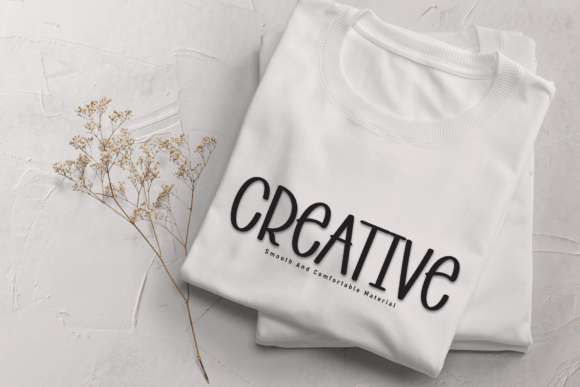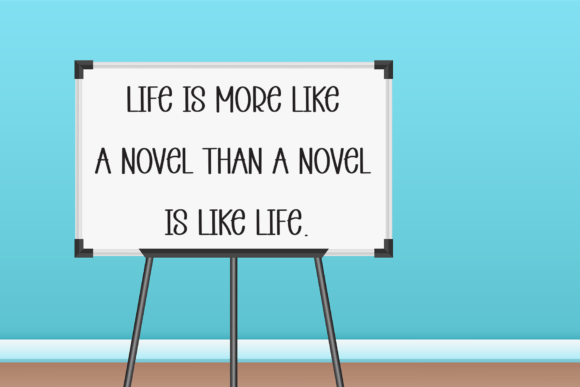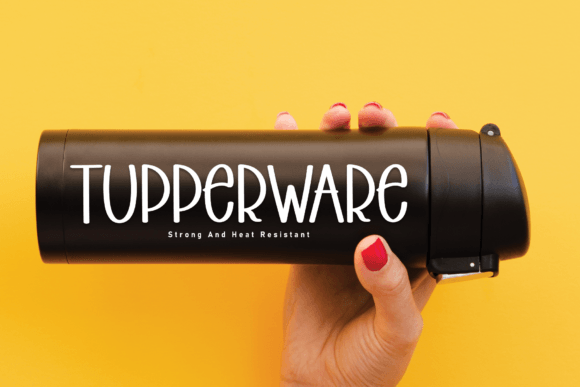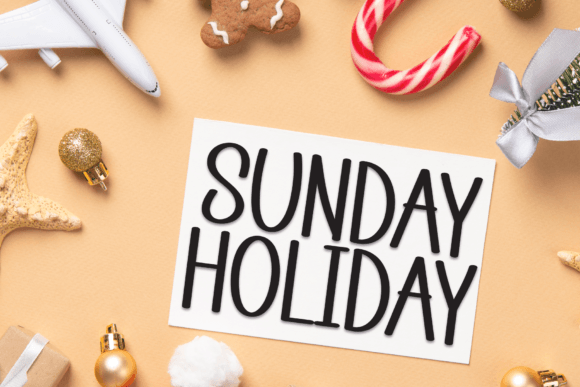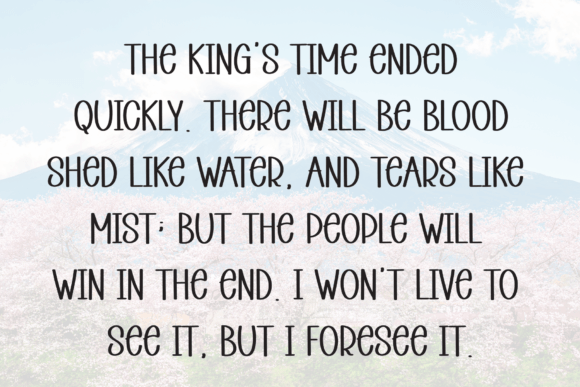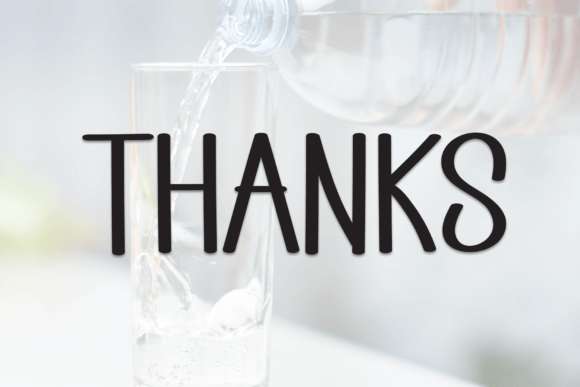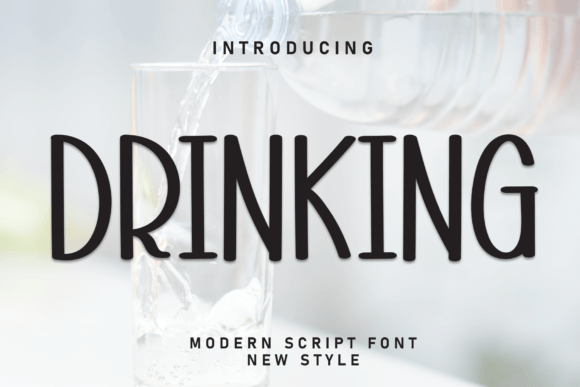
Introducing Drinking Font: The Sweet and Friendly Handwritten Font for Your Creative Projects
Are you a designer, crafter, or DIY enthusiast looking for a font that can add a personal touch to your creative projects? Look no further than Drinking Font, a sweet and friendly handwritten font that’s perfect for a wide range of designs. With its natural and unique style, Drinking Font is incredibly versatile and can be used for everything from branding and packaging to scrapbooking and journaling.
The Characteristics of Drinking Font
Drinking Font is a handwritten font that’s designed to look like it was written with a pen or pencil. Its natural and fluid strokes give it a unique and charming appearance that’s sure to capture the attention of your audience. The font features:
- Natural and unique style: Drinking Font has a distinctive look that’s both sweet and friendly.
- Handwritten appearance: The font is designed to look like it was written by hand, giving it a personal and approachable feel.
- High legibility: Despite its handwritten appearance, Drinking Font is highly legible and easy to read.
The Benefits of Using Drinking Font
So why should you choose Drinking Font for your creative projects? Here are just a few benefits of using this versatile font:
- Endless possibilities: With Drinking Font, the only limit is your imagination! The font can be used for a wide range of designs, from elegant and sophisticated to playful and whimsical.
- Perfect for branding and packaging: Drinking Font is a great choice for logos, labels, and packaging designs that require a personal touch.
- Ideal for scrapbooking and journaling: The font’s handwritten appearance makes it perfect for scrapbooking and journaling projects that require a personal and creative touch.
Tips for Using Drinking Font
Here are a few tips for getting the most out of Drinking Font:
- Experiment with different colors: Drinking Font looks great in a variety of colors, so don’t be afraid to experiment and find the perfect hue for your design.
- Pair it with other fonts: Drinking Font can be paired with other fonts to create a unique and eye-catching design.
- Use it for headings and titles: The font’s bold and playful appearance makes it perfect for headings and titles.
Drinking Font is a sweet and friendly handwritten font that’s perfect for designers, crafters, and DIY enthusiasts. With its natural and unique style, high legibility, and endless possibilities, Drinking Font is a great choice for a wide range of creative projects. Whether you’re looking for a font for branding and packaging, scrapbooking and journaling, or simply want to add a personal touch to your designs, Drinking Font is the perfect choice.